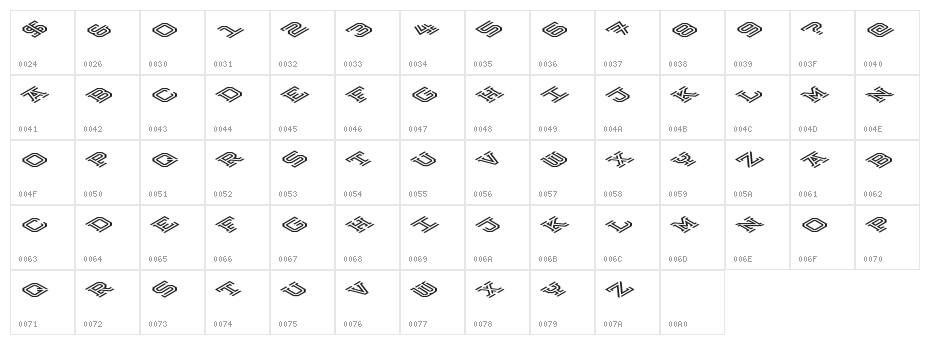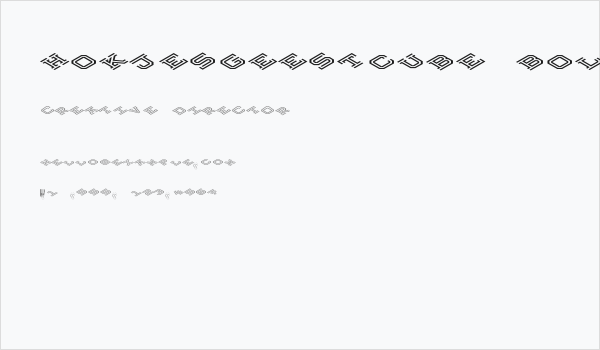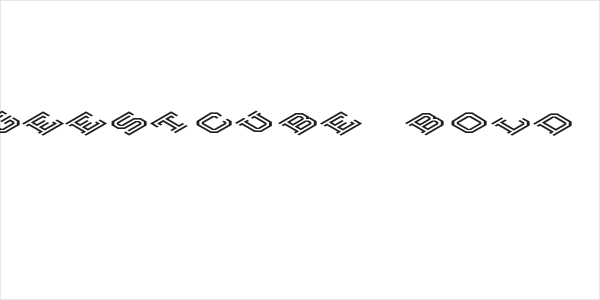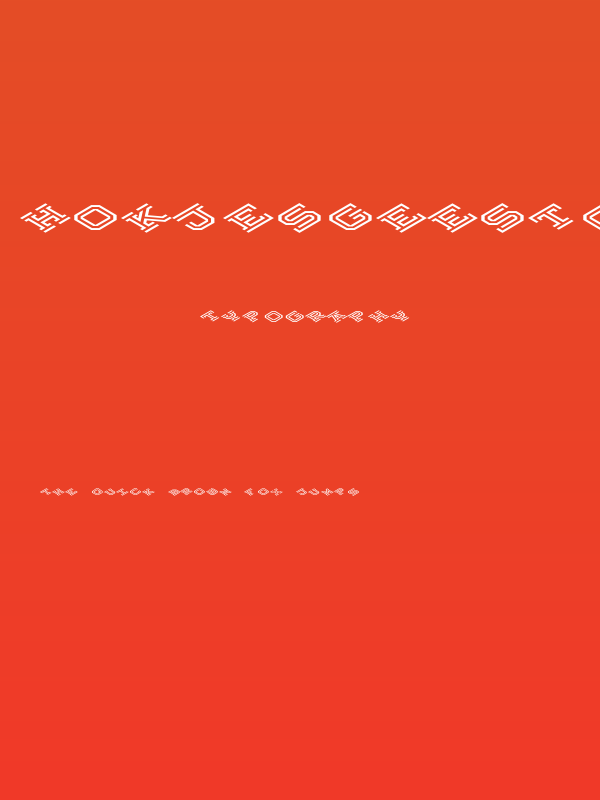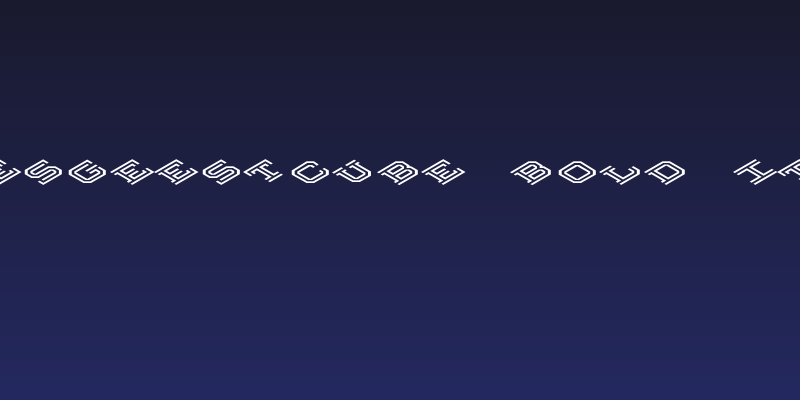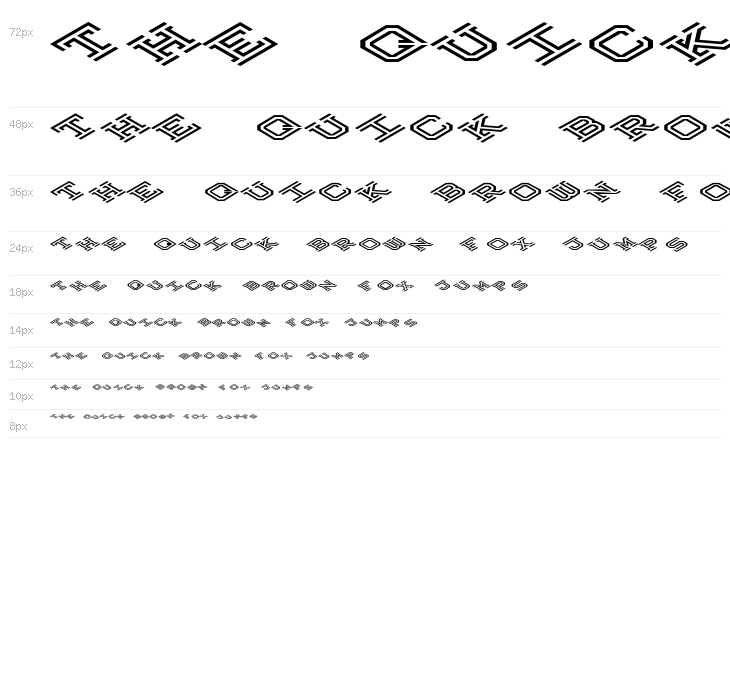
Hokjesgeestcube Bold Italic Font
Hokjesgeestcube Bold Italic Description
This font features a bold and italicized style with a unique geometric and three-dimensional appearance. The characters are designed with a cube-like structure, giving them a distinct and modern look. Each letter is composed of multiple lines that create a layered effect, enhancing the depth and visual interest. The uppercase and lowercase letters maintain a consistent style, while the numbers and special characters follow the same geometric theme. This font is ideal for projects that require a futuristic or tech-inspired aesthetic.
| Proposed Projects | Ideal for futuristic designs, tech branding, video game titles, and modern posters. |